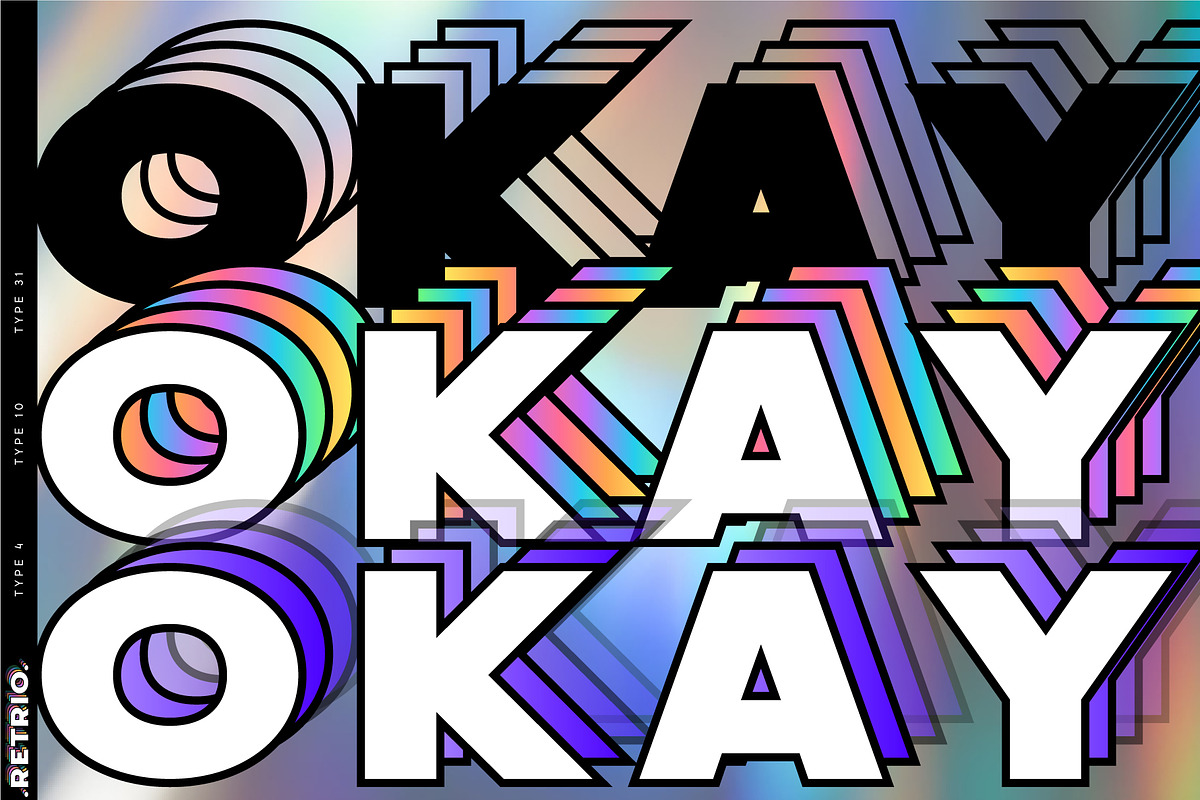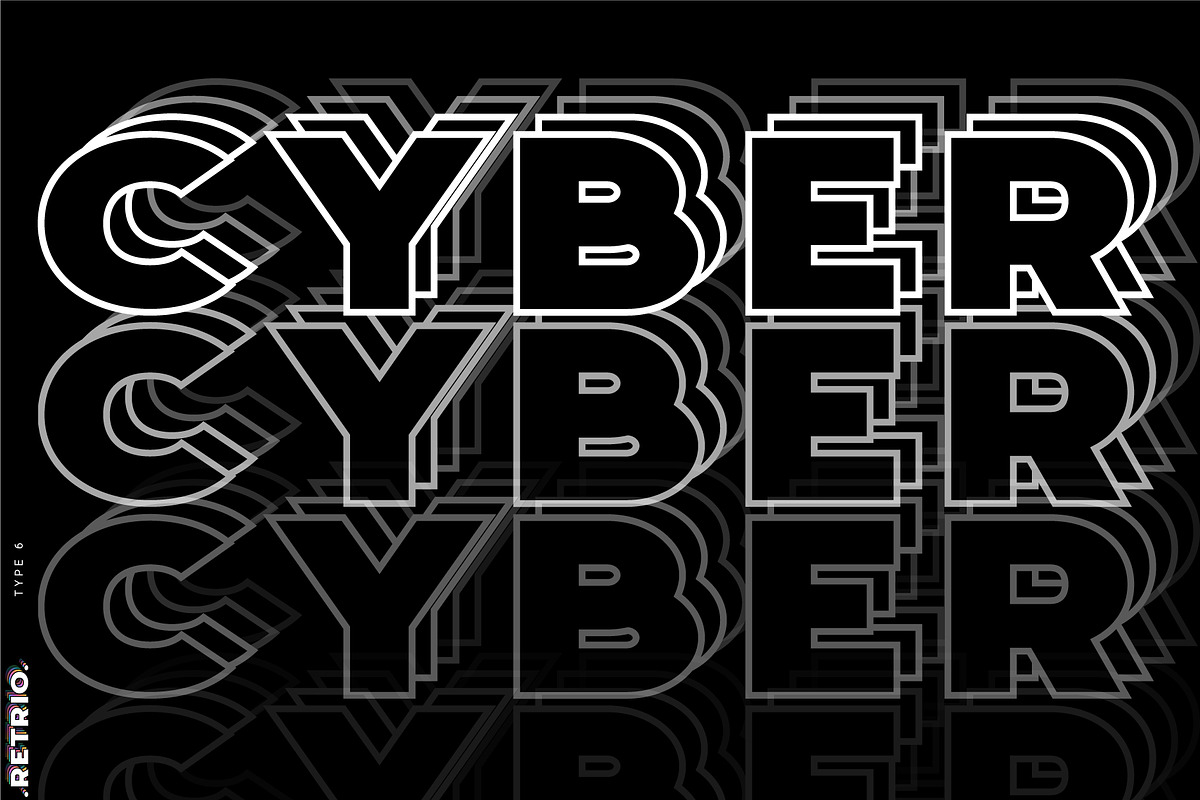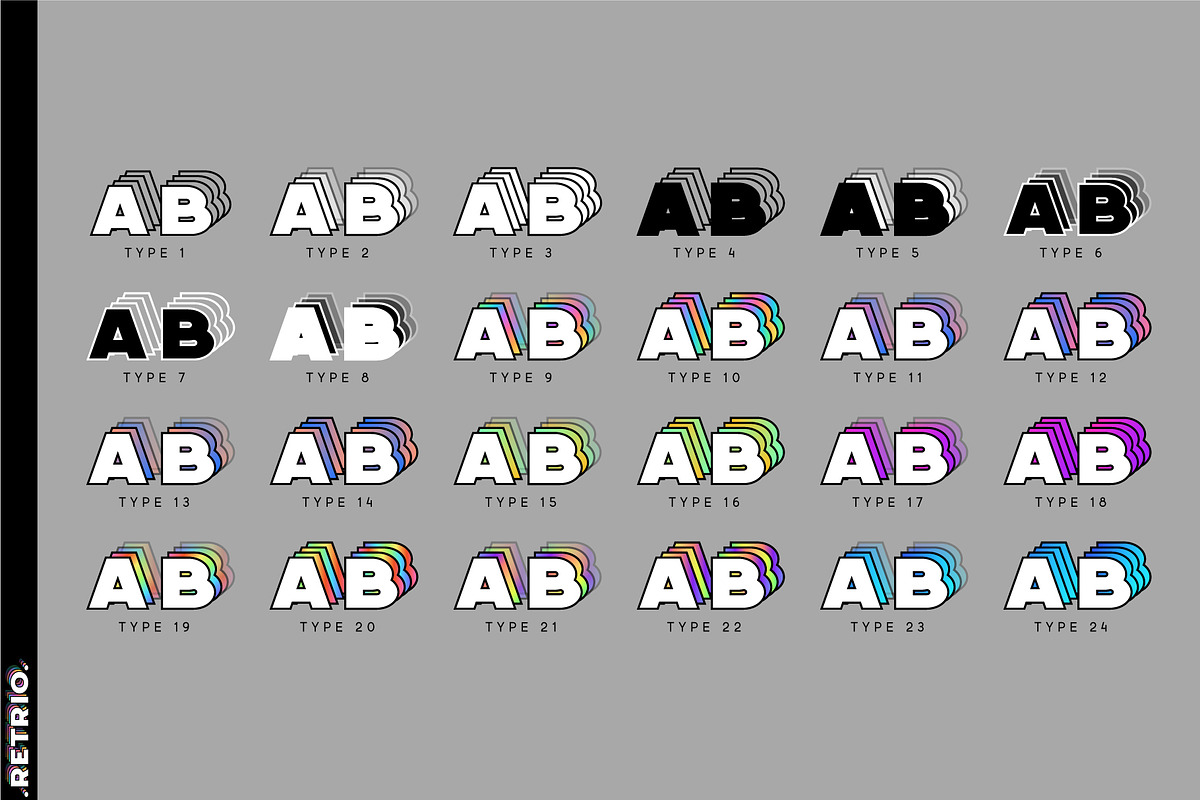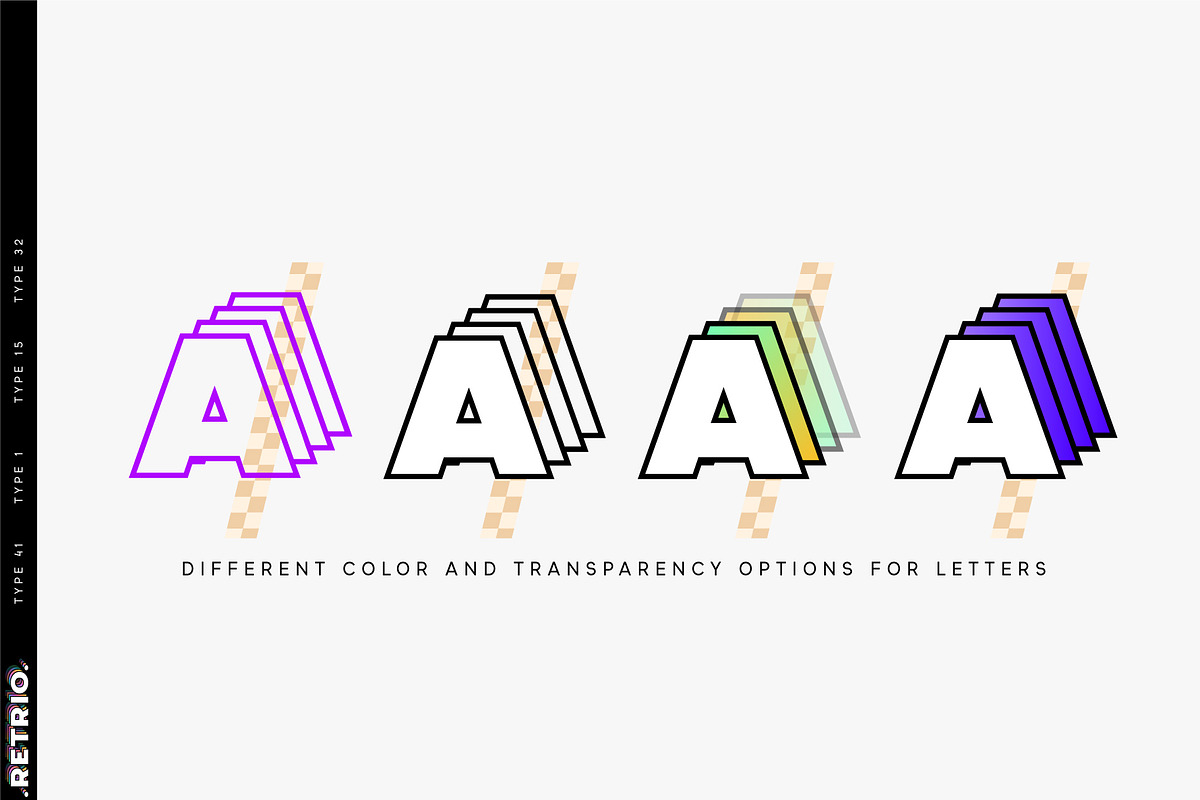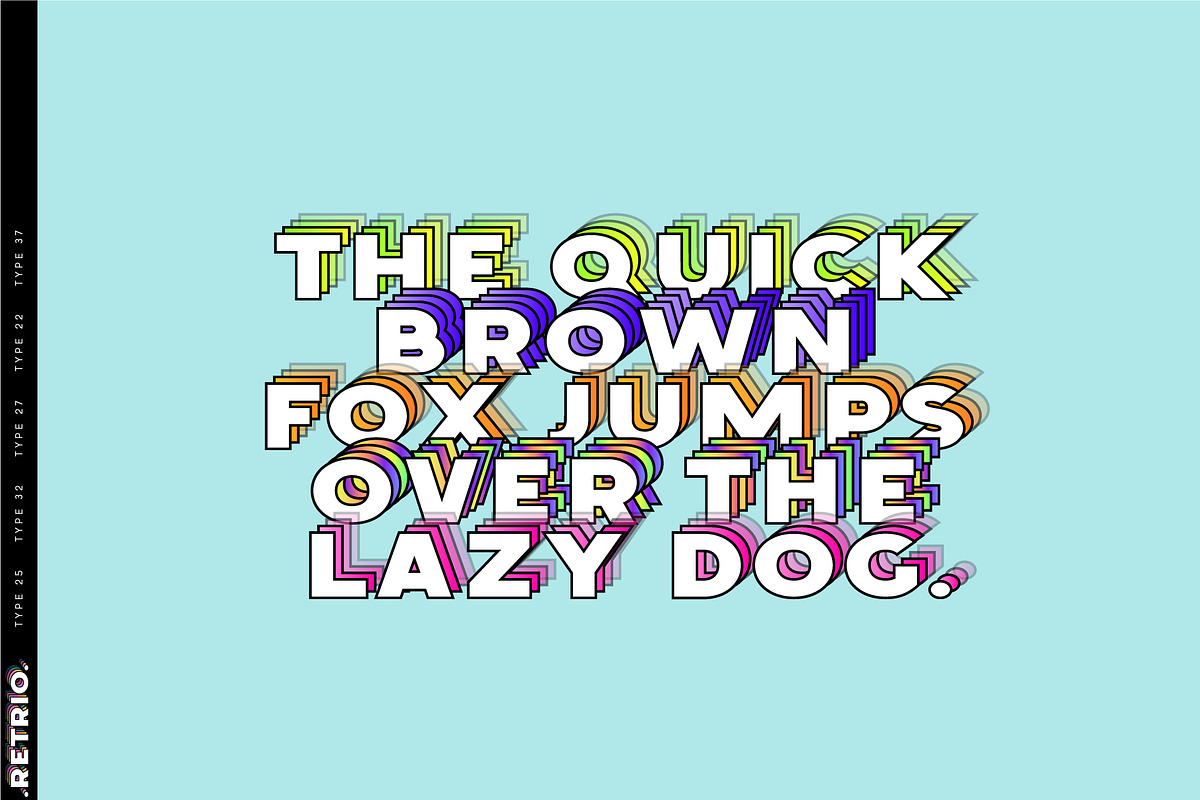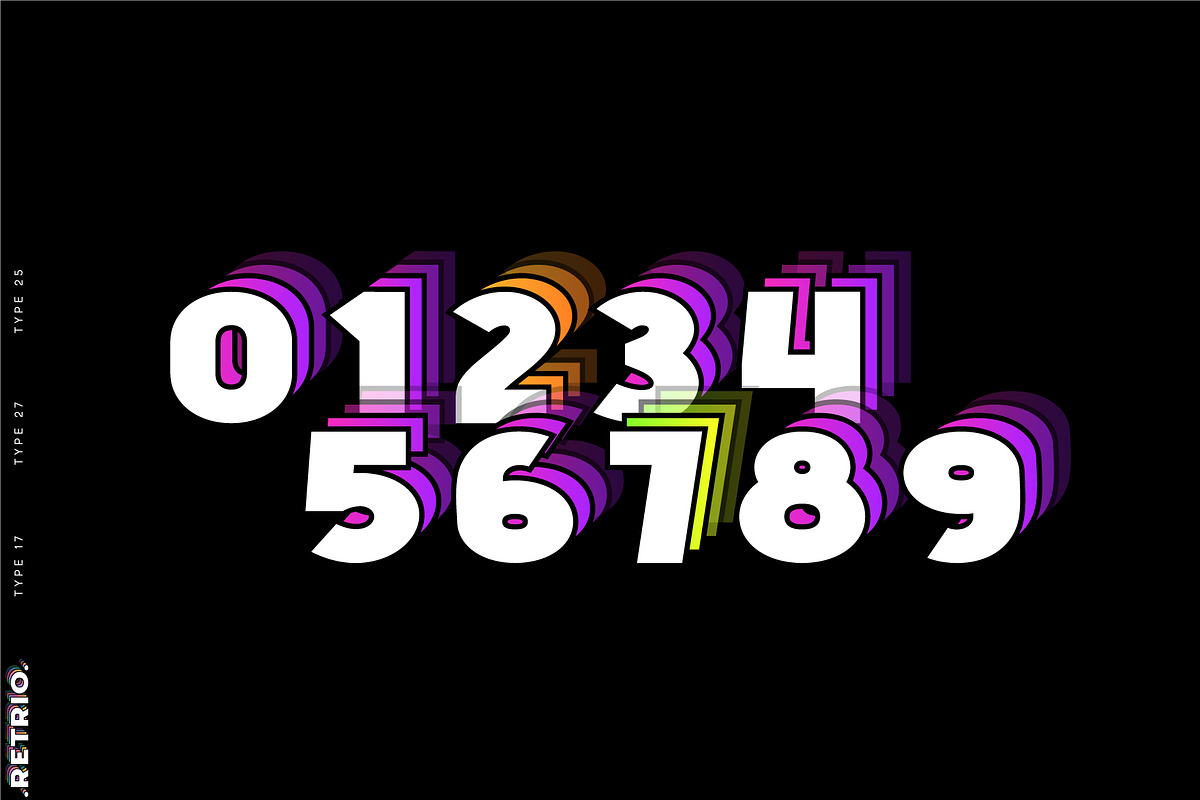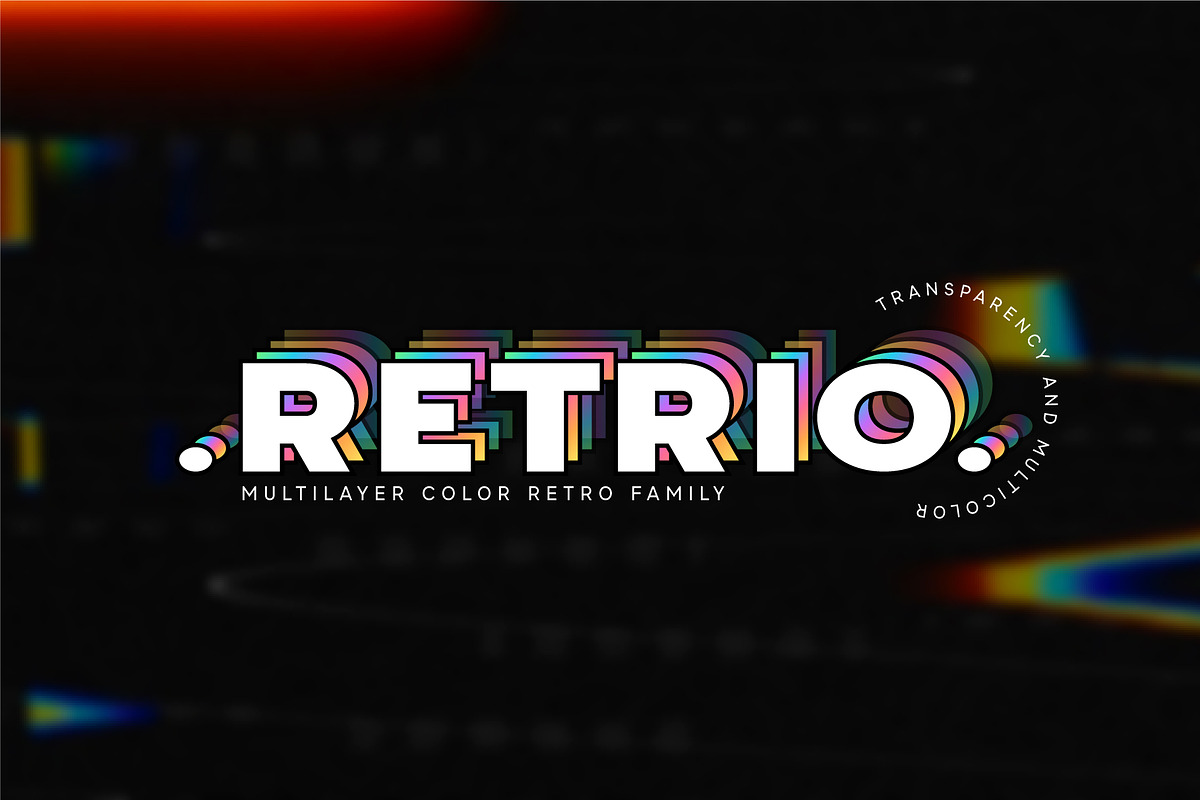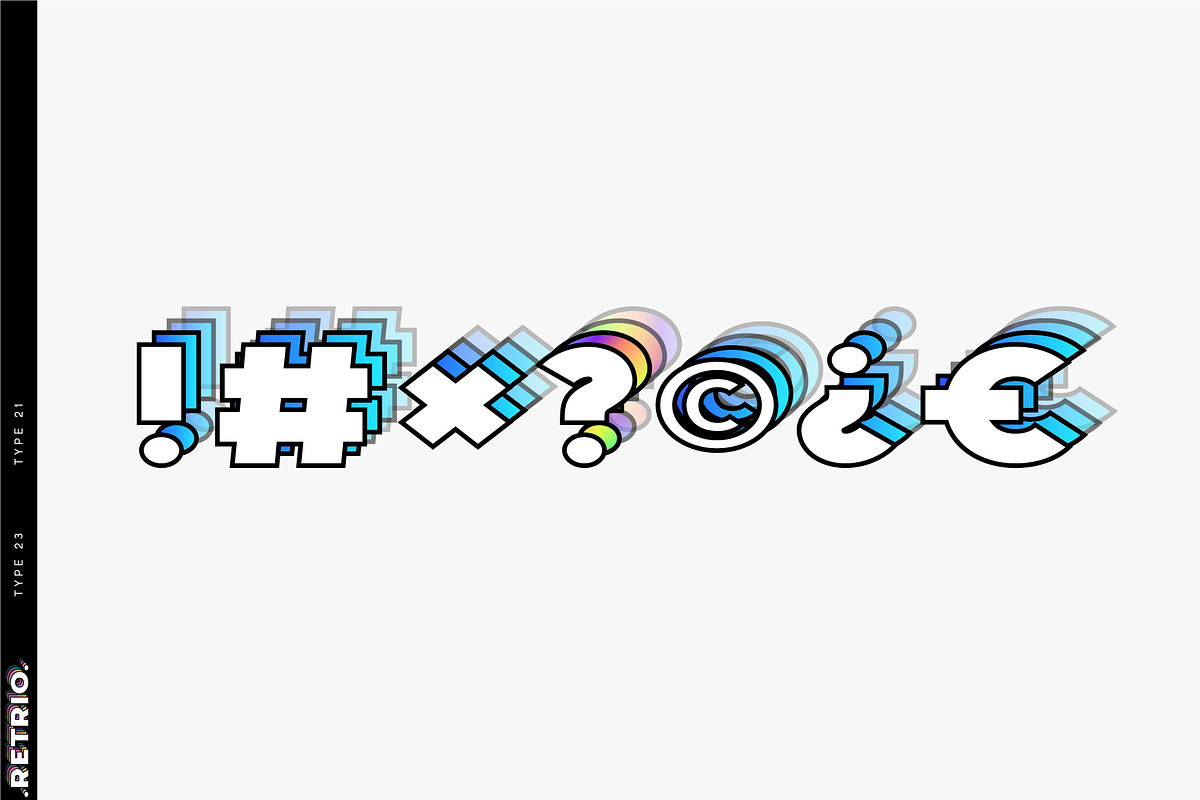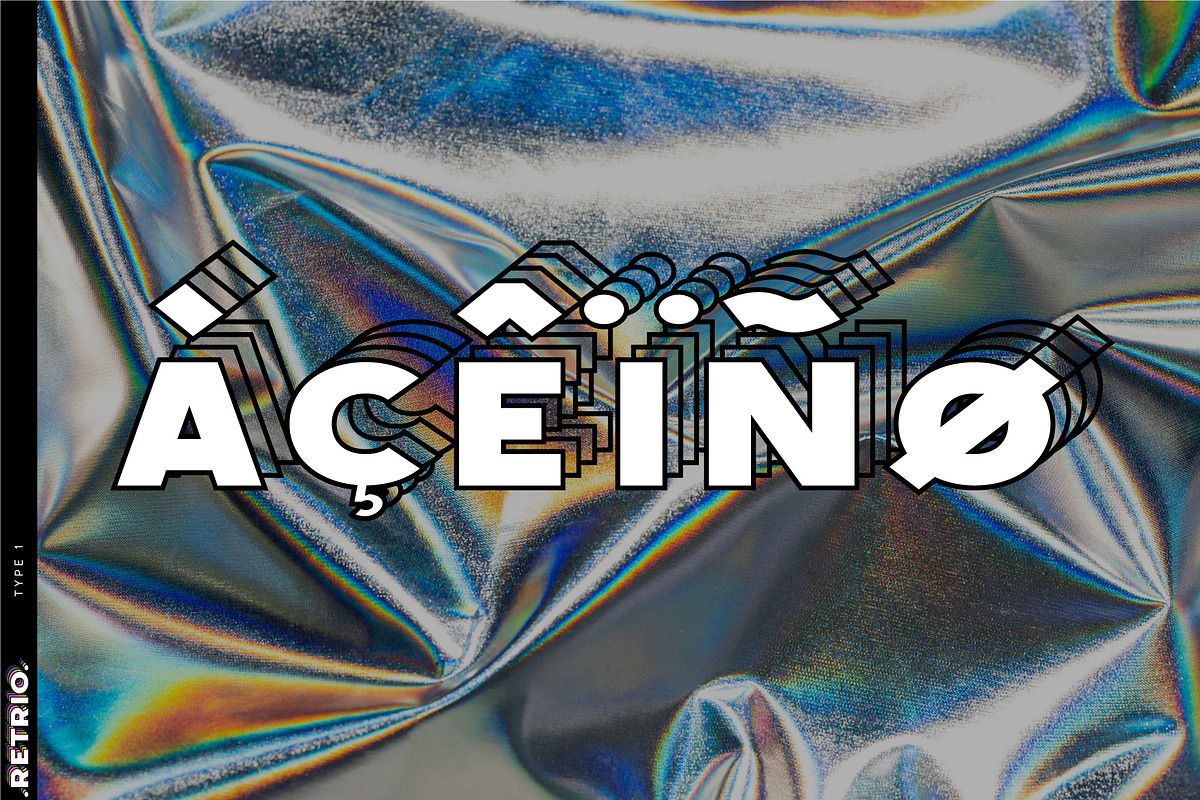
Retrio. OTF-SVG Color Family
Introducing Retrio. Original glyphs with echoed behind. As if the letters were moved, but the kinetic trail remained. COLORED, gradient, with transparency or solid - many options in one family for any task and for every taste. Font will emphasize the style of the 20th century in illustration. Discos, electro music, records, nostalgia - these are the associations that this font family evokes, which is very important in design. At the same time, the Retrio font is not outdated, it was created taking into account modern trends in retro themes. Unique family in which there are both color and classic monochrome versions. Great versatility in use is provided by the many fonts in the set. Great for ad designs, posters, headlines and covers.
- Uppercase and lowercase the same size.
- With transparency and without.
- Mega high-quality gradients in letters.
- Kerning.